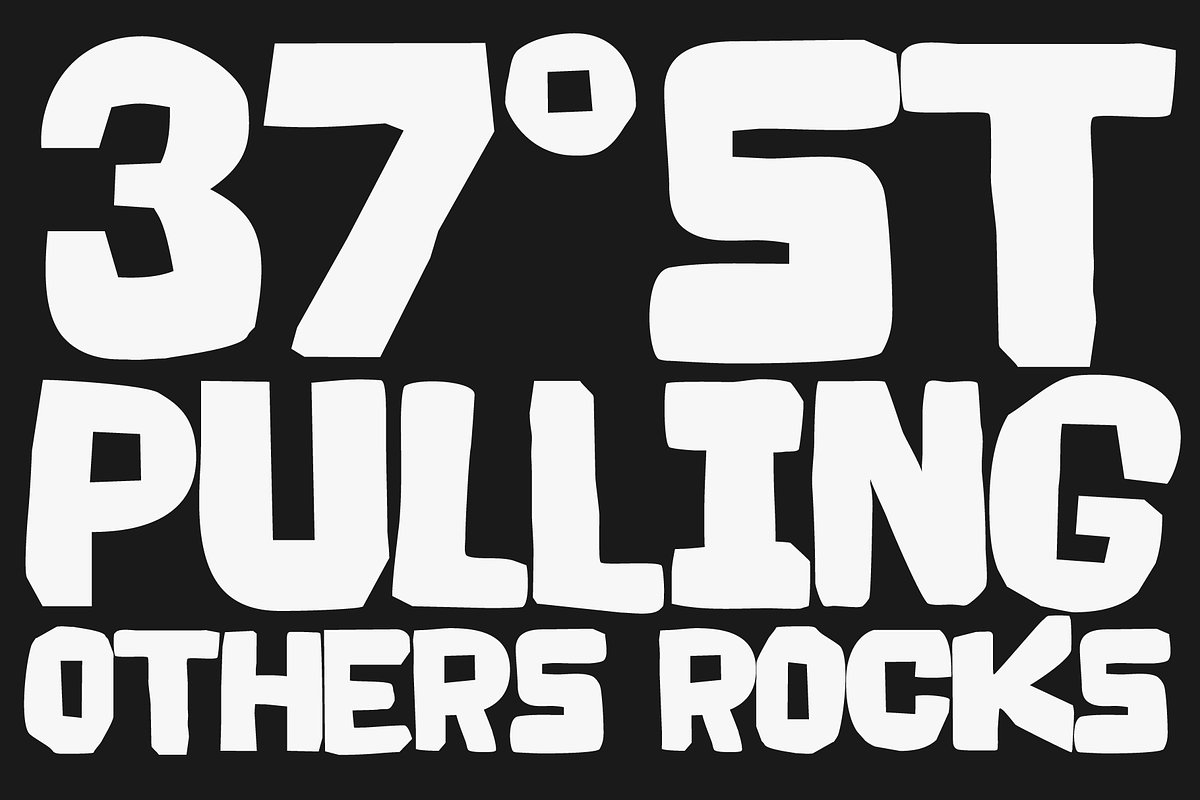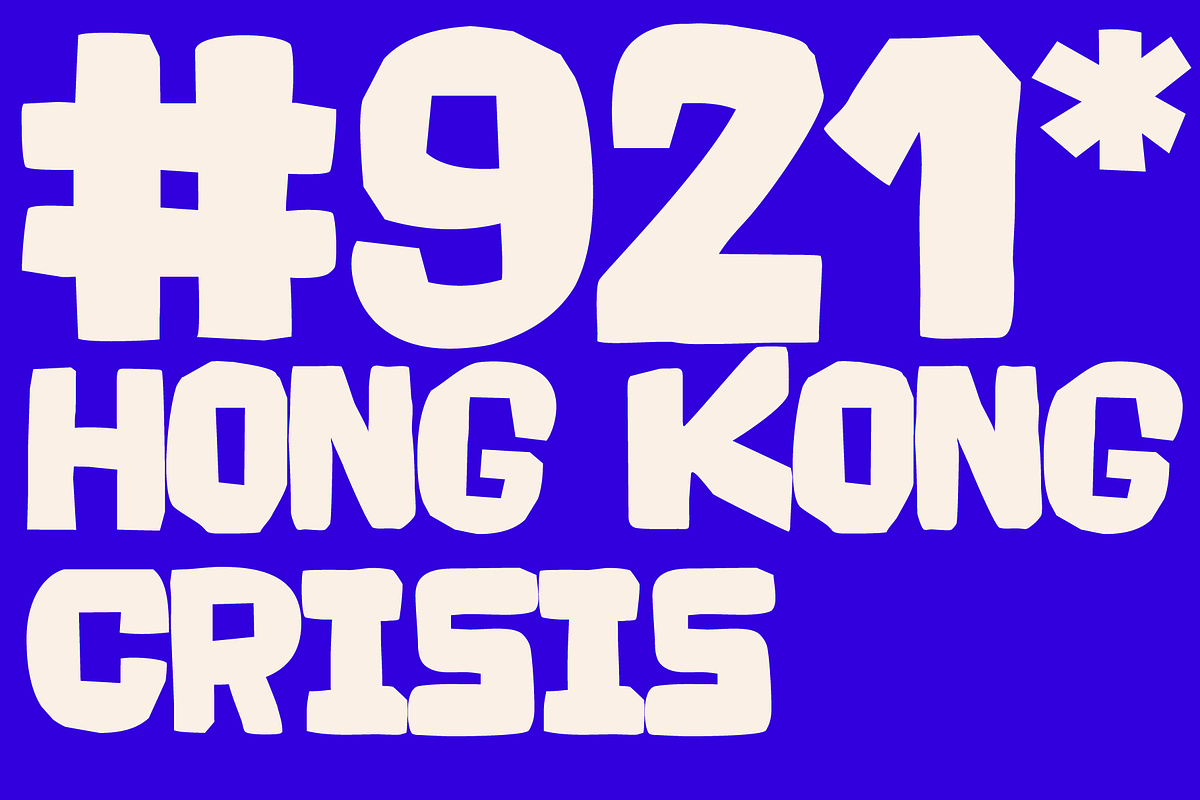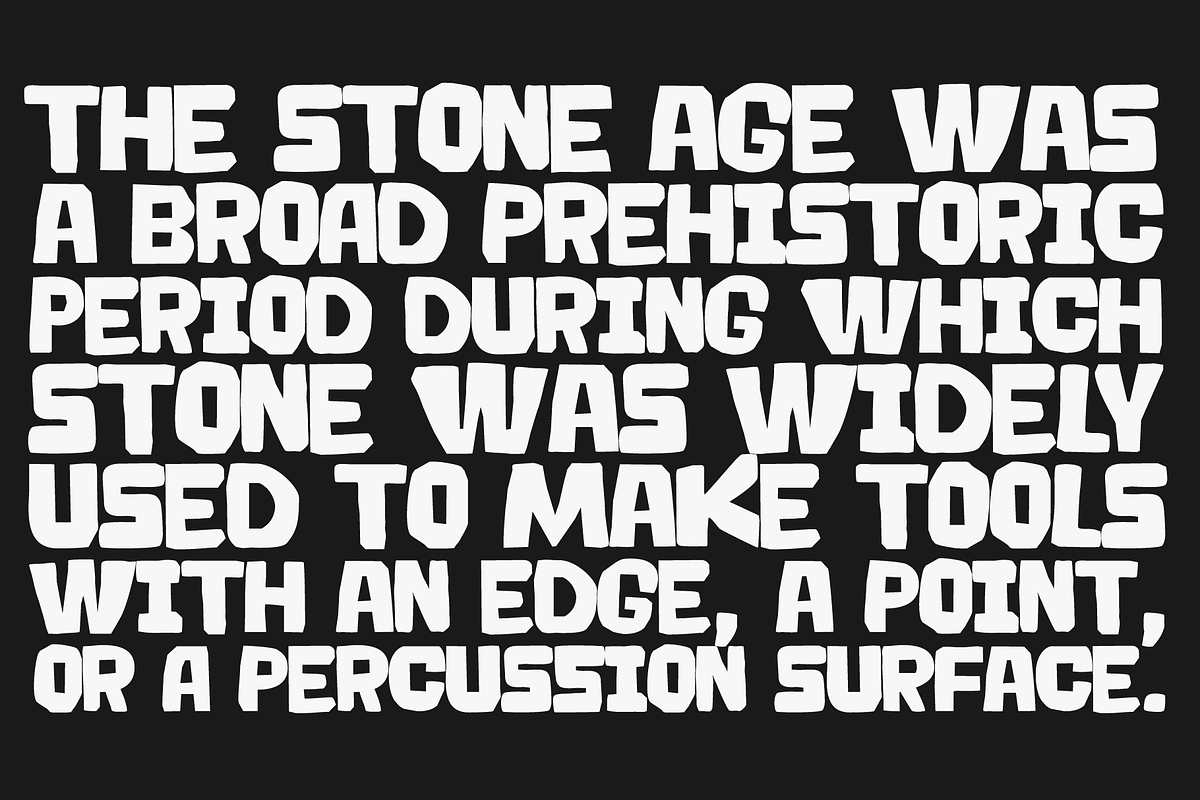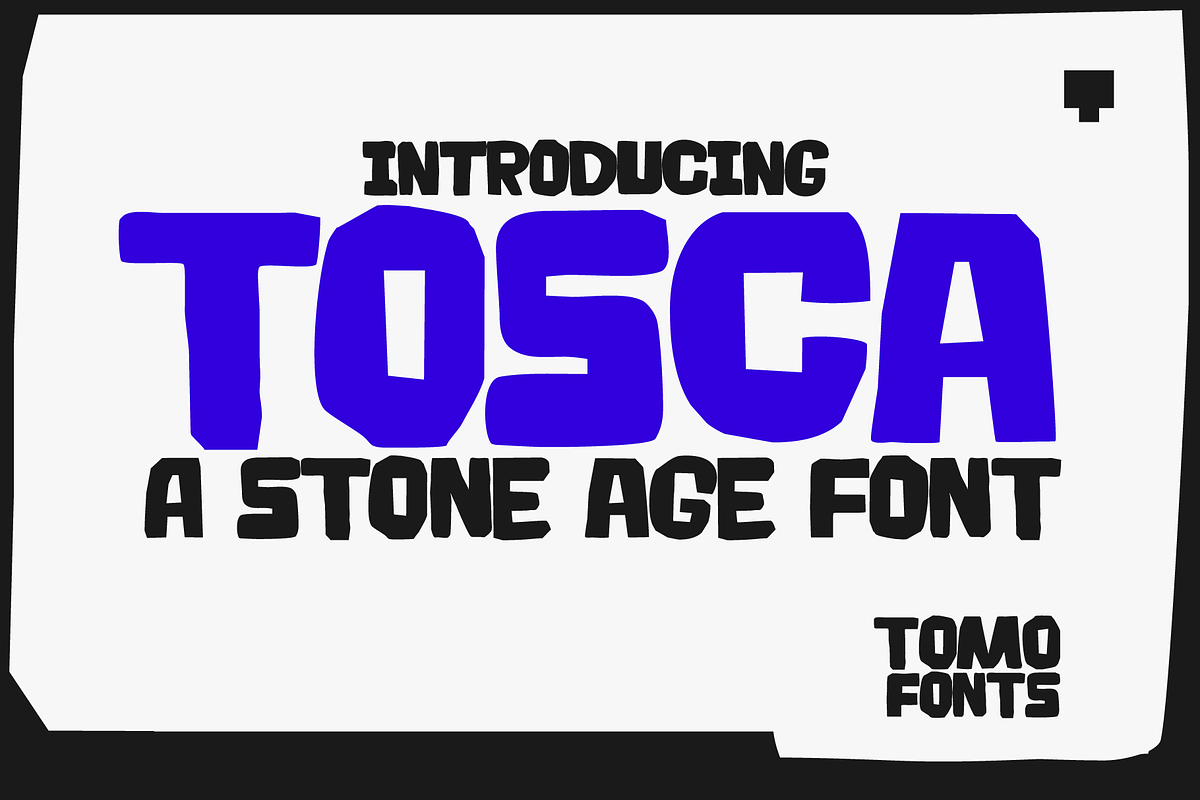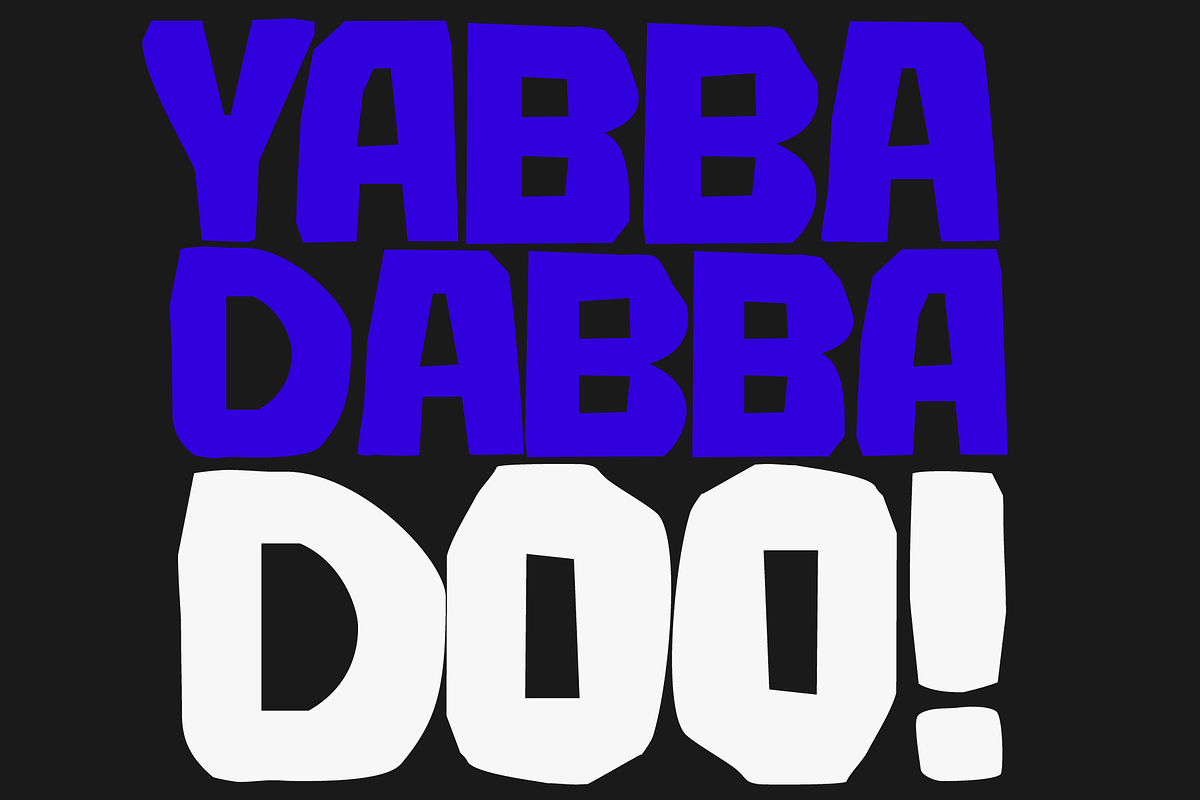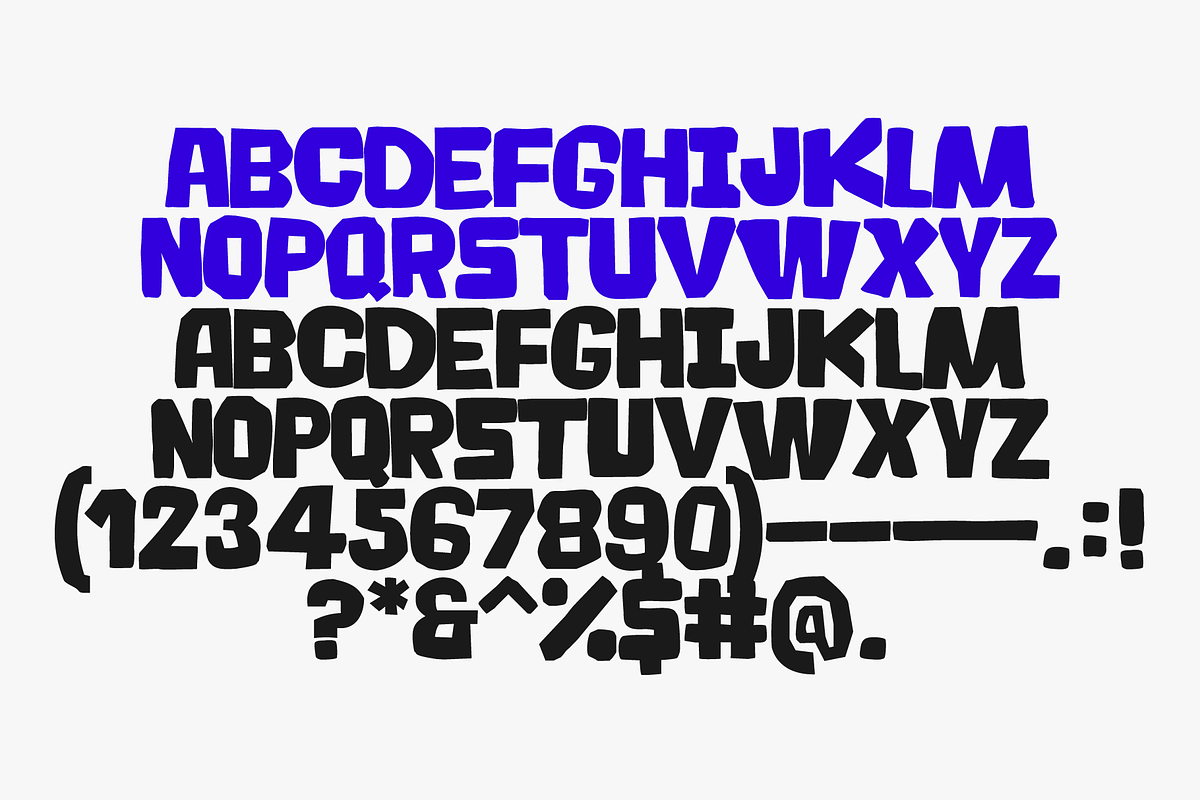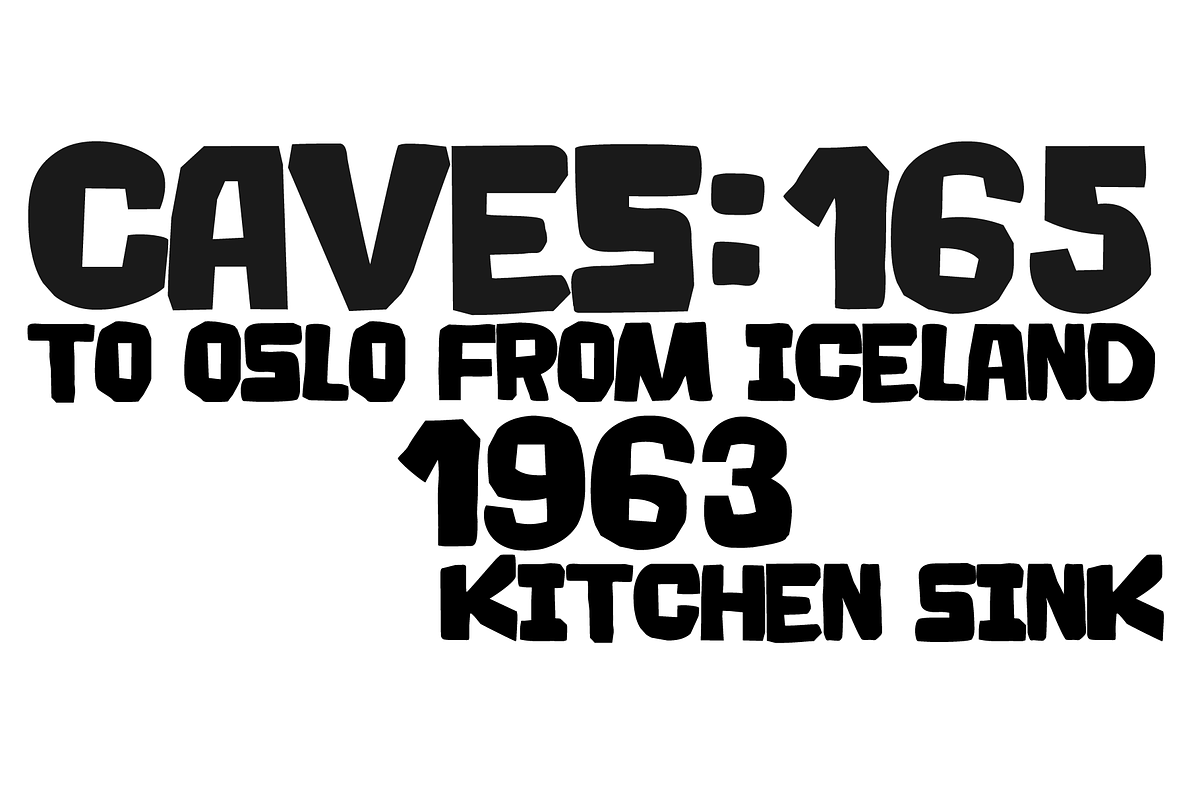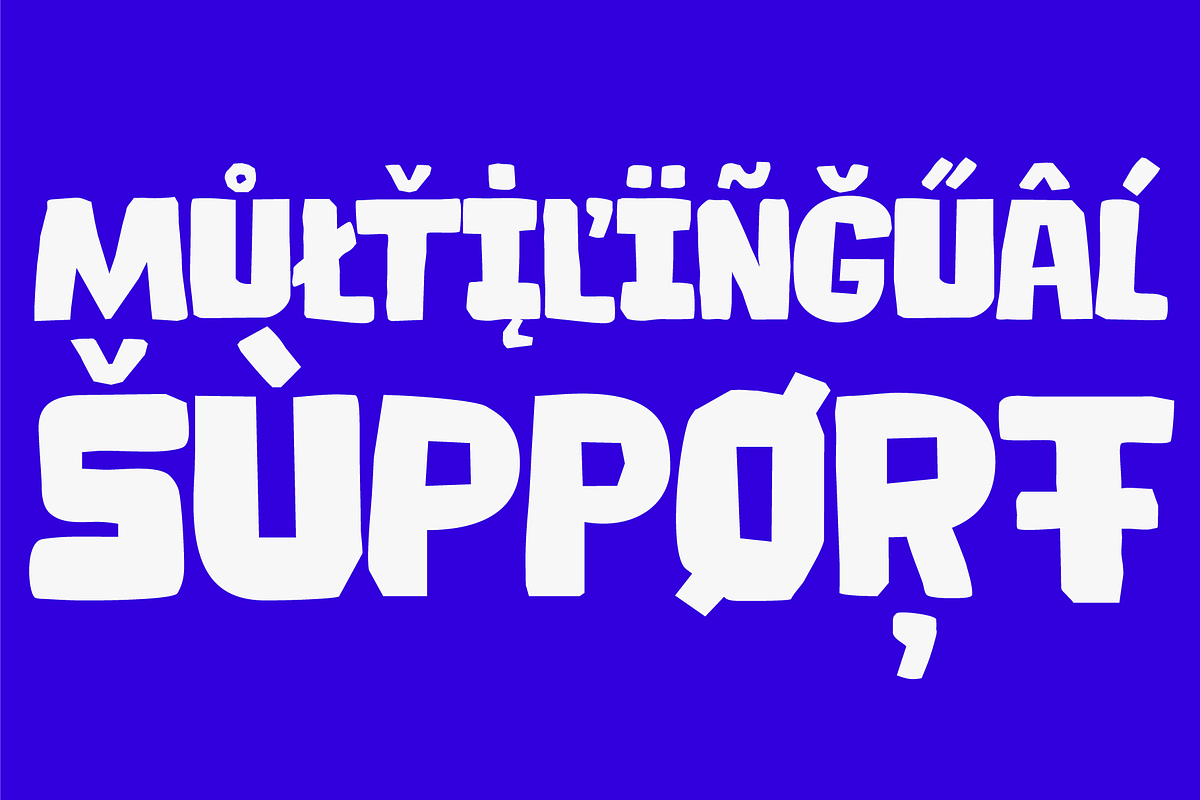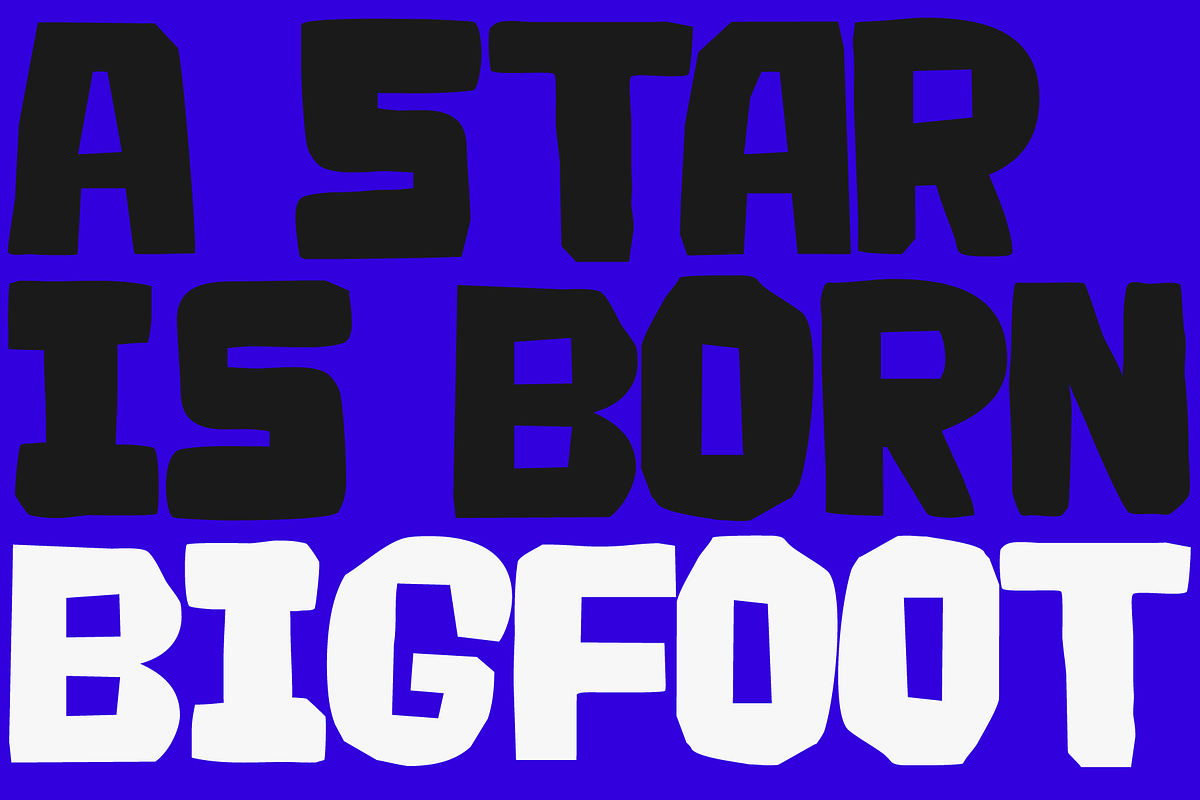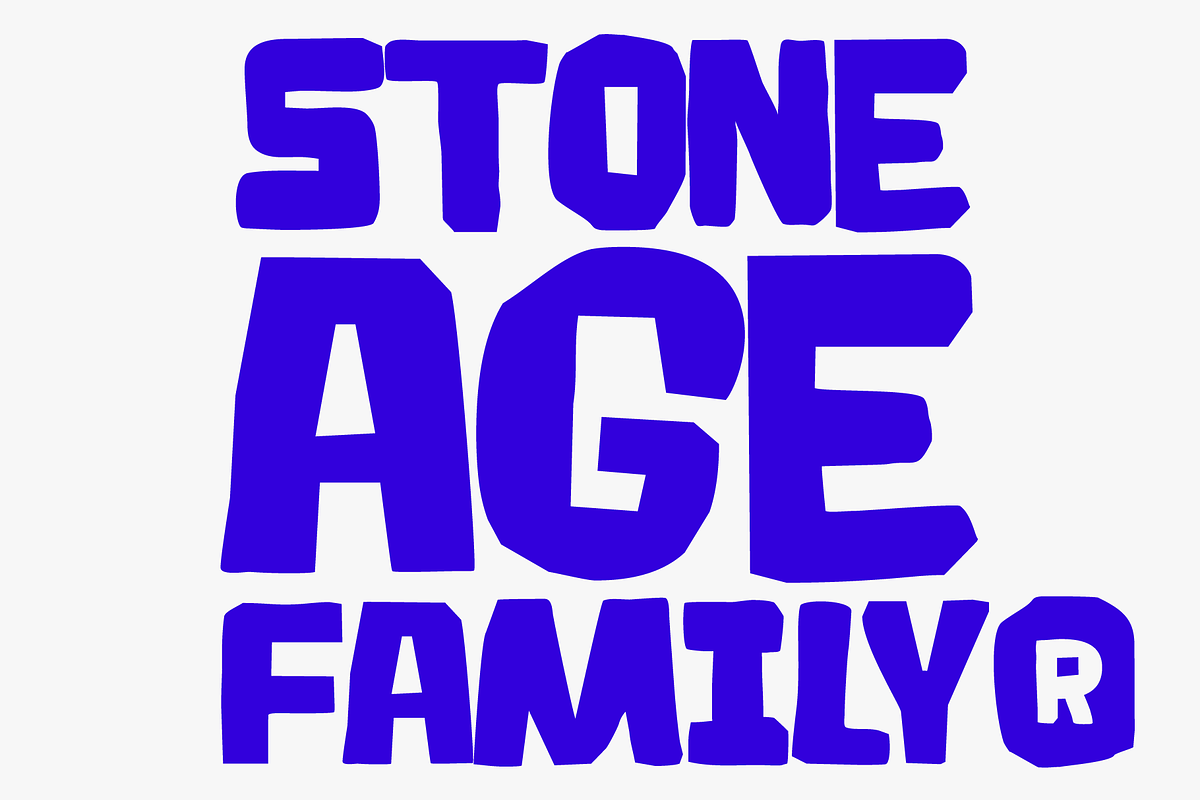
TOMO Tosca
Tosca is a new face designed by TOMO FONTS. Is a massive all-caps font with a stone age feel. Good-humoured shapes ideal strong messages. Very useful for kids related stuff, like books, posters, or websites. Lowercases are a slightly different from uppercases for a more natural look. Enjoy! www.tomofonts.com